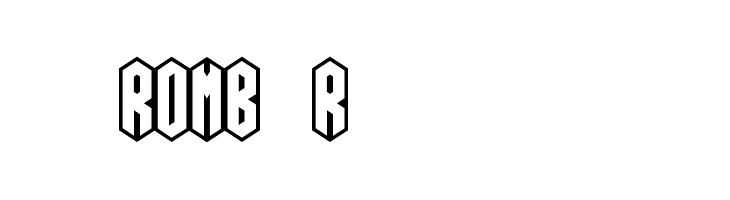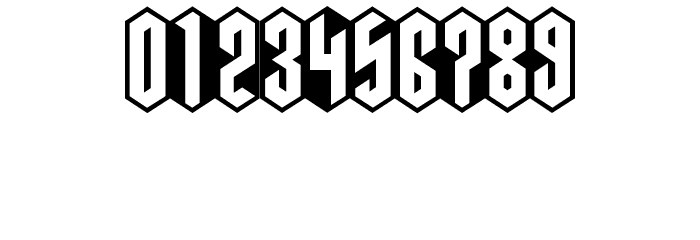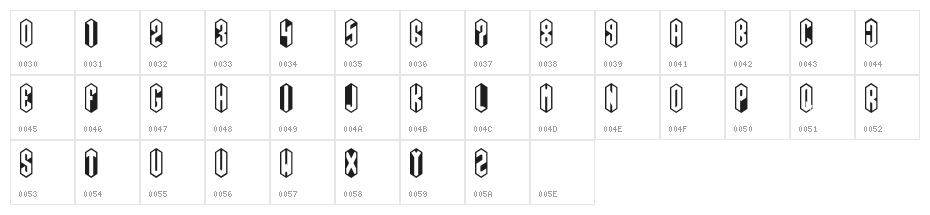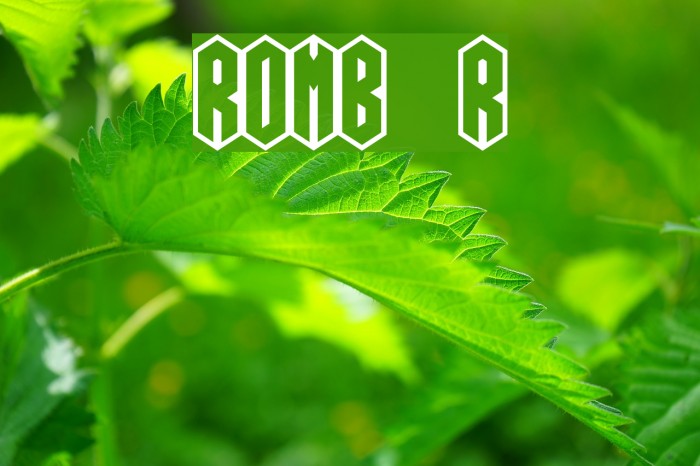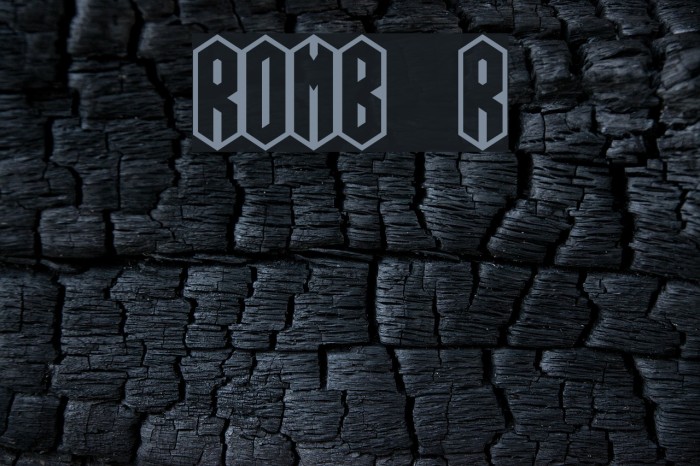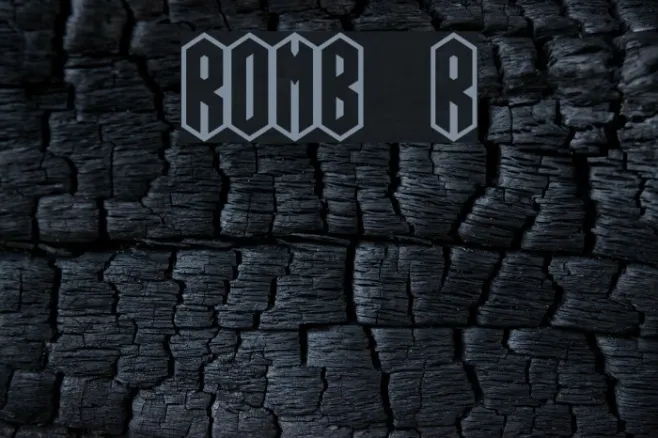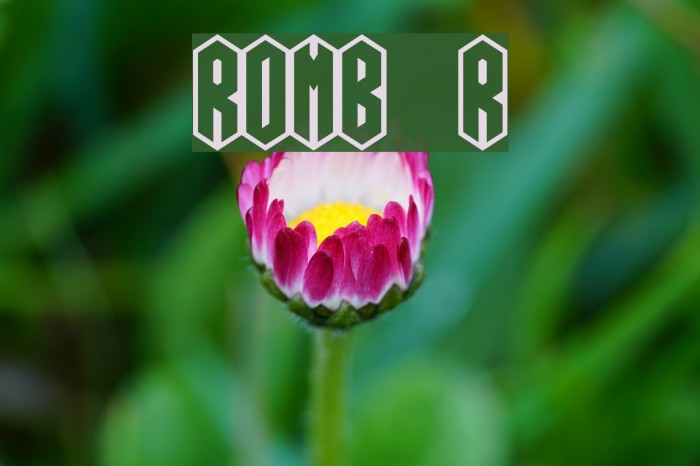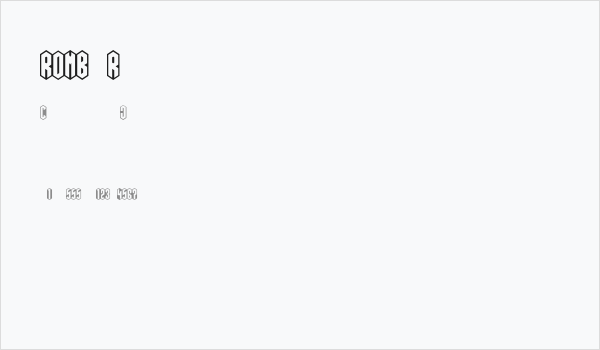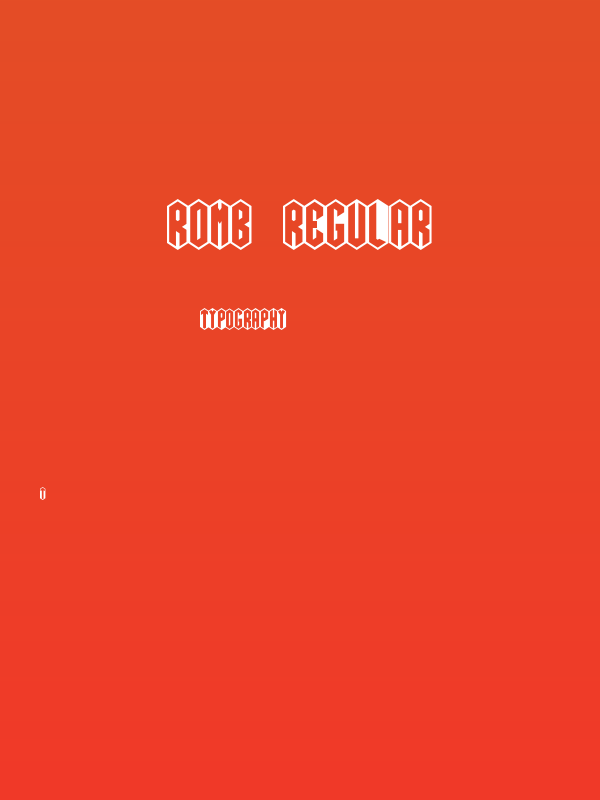
ROMB Regular Font
ROMB Regular Description
This font features a bold, geometric design with a strong 3D effect, creating a striking and dynamic appearance. The letters are constructed with sharp angles and a consistent width, giving them a uniform and cohesive look. The shadow effect adds depth and dimension, making the characters stand out prominently. This style is reminiscent of industrial or futuristic themes, with a touch of retro influence. The numbers follow the same design principles, ensuring consistency across all characters.